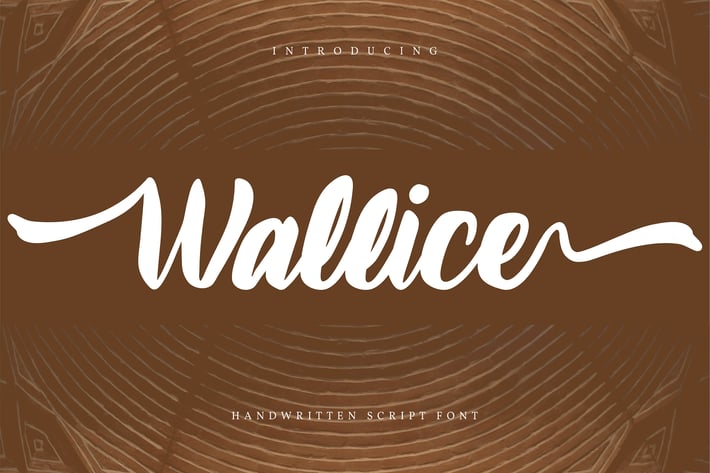
Wallice | Handwritten Script Font
Wallice | Handwritten Script Font with a calligraphy style, So beautiful on invitation like greeting cards, branding materials, business cards, quotes, posters, and more!